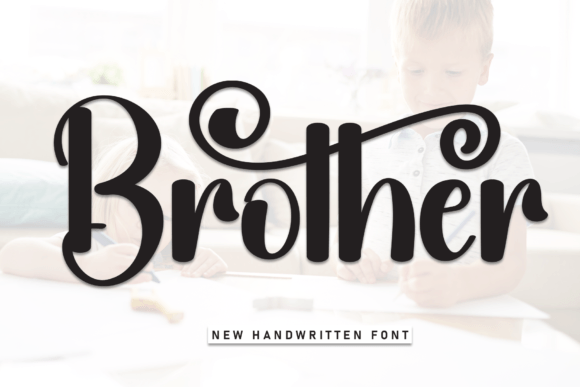
The Perfect Companion for Your Next Creative Project
Have you ever stared at a blank page, pencil in hand, and wondered what amazing design would finally come to life? That’s the magic of creativity – and the key to unlocking it is often the right tool. For designers, the perfect font can be the difference between a good design and a great one. That’s where Brother Font comes in – a sweet and friendly handwritten font that’s ready to be your new best friend.
With its natural and unique style, Brother Font is the perfect companion for any design project. Whether you’re working on a logo, a poster, or a social media graphic, this font is sure to bring a touch of warmth and personality to your work. And the best part? The only limit is your imagination – so don’t be afraid to let your creativity shine with Brother Font.
Brother Font Key Features
- Unique Characteristics: Brother Font features a unique blend of modern and classic design elements, making it suitable for a wide range of applications, including digital and print materials
Brother Font Review
Overall, I think the Brother Font is a solid addition to any designer’s toolkit, but it’s not without its flaws. Here’s my honest take.
- Beautiful handwriting-like feel, making it perfect for titles, quotes, and other decorative text elements.
- Excellent legibility, even at smaller font sizes.
- Works well in digital and print formats, making it a versatile choice.
- Has a wide range of weights and styles, allowing for a lot of creative freedom.
- May not be suitable for body text due to its high contrast and ornate style, which can be fatiguing to read.
- Lacks a clear, neutral tone, making it less versatile than other fonts.
- Some characters, like the ‘a’ and ‘g’, can be a bit irregular, which may affect readability.
While the Brother Font excels in certain areas, its limitations hold it back from being a go-to choice for everyday design projects. Still, it’s a great option for specific use cases, like adding a touch of elegance or whimsy to your design. With careful consideration and selection, this font can add a unique touch to your work.
Use Brother Font for titles, headings, and emphasis. It’s particularly effective for creating a modern and sleek look in digital designs.
Experiment with different font sizes and styles to add visual interest to your designs.
Combine Brother Font with other fonts for a unique and eye-catching look.
Alternatives to Brother Font for Designers
1. Museo
Museo is a modern sans-serif font designed for digital use. It’s ideal for headlines, titles, and body text where a clean and elegant look is required. Museo has a similar feel to Brother Font, but with a more contemporary and sophisticated aesthetic.
Open Sans is a popular sans-serif font that’s highly legible and versatile. It’s suitable for body text, headlines, and other design elements where a clear and readable font is needed. Open Sans has a more open and airy feel compared to Brother Font, making it a great choice for digital designs.
Lato is a sans-serif font with a modern and clean design. It’s perfect for titles, headings, and body text where a sophisticated and elegant look is required. Lato has a similar feel to Brother Font, but with a more subtle and refined aesthetic.
Montserat is a sans-serif font inspired by the urban environment of Buenos Aires. It’s ideal for headlines, titles, and body text where a bold and modern look is required. Montserrat has a more aggressive and geometric feel compared to Brother Font, making it a great choice for designs that need a strong and edgy aesthetic.